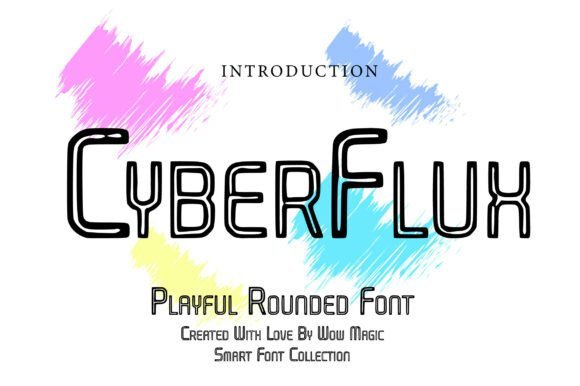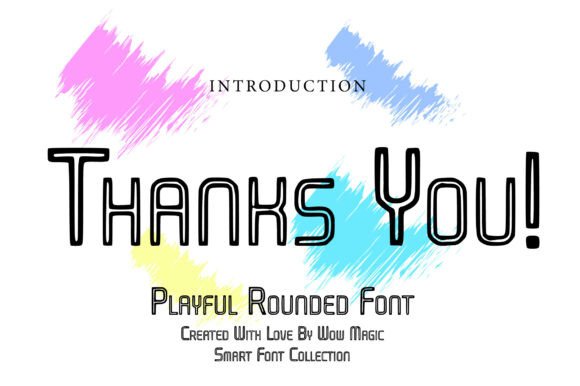
Captivating Audiences in the Digital Age
Imagine you’re working on a project that requires a bold, futuristic touch. You’ve got your ideas, your concept, but something’s missing – a visual element that transports your audience to a world of neon-lit skyscrapers and high-tech innovation. That’s where the Cyberflux Font comes in – a sleek, modern typeface designed to evoke the spirit of cyberpunk and digital revolution.
This futuristic font is not just a design element, but a key to unlocking the full potential of your creative vision. With its smooth rounded corners, clean monoline structure, and hollow outline construction, Cyberflux Font is the perfect tool for designers who want to add a bold, cyber-inspired, and contemporary touch to their work. Whether you’re building a tech brand, designing a gaming identity, or creating a futuristic poster, this font brings a powerful and stylish digital energy to your work.
Cyberflux Font Key Features
- Unique Characteristics: The font features a unique blend of futuristic and minimalist design elements, making it ideal for sci-fi, technology, and gaming-related projects.
Cyberflux Font Review
I recently had the chance to work with the Cyberflux font, and I must say it’s an interesting choice for digital interfaces. Here are my thoughts on what works well and what doesn’t.
Unique aesthetic: Cyberflux has a futuristic, high-tech vibe that’s perfect for sci-fi or tech-related projects. Its sleek lines and geometric shapes make it stand out from more traditional fonts.
High legibility: Despite its complex design, Cyberflux is surprisingly easy to read, even at smaller font sizes. This makes it a great choice for interfaces where text is a priority.
Flexibility: Cyberflux comes in a range of weights and styles, making it easy to customize for different applications.
Limited expressiveness: While Cyberflux is great for conveying a sense of technology and futurism, it may not be the best choice for projects that require a more emotional or personal tone.
Overuse risk: The font’s futuristic aesthetic can quickly become clichéd or overused, which may detract from its impact.
Cyberflux is a solid choice for designers looking to create a futuristic or tech-savvy aesthetic. While it may not be the most expressive or versatile font, its unique design and high legibility make it a great option for specific projects. With careful use and consideration, Cyberflux can be a powerful tool in a designer’s toolkit.